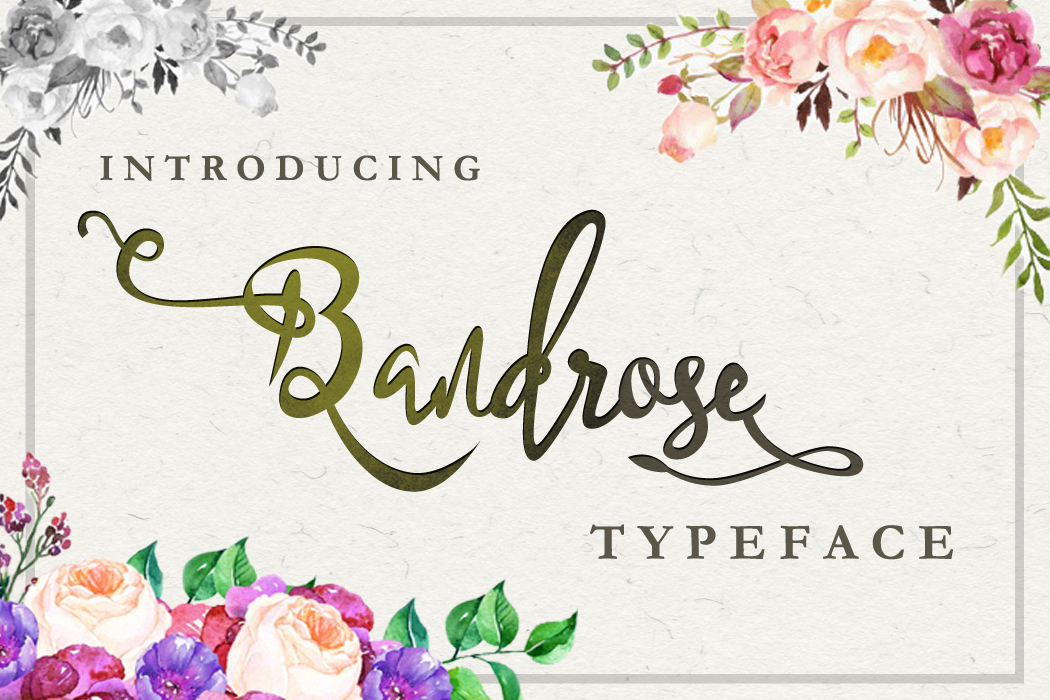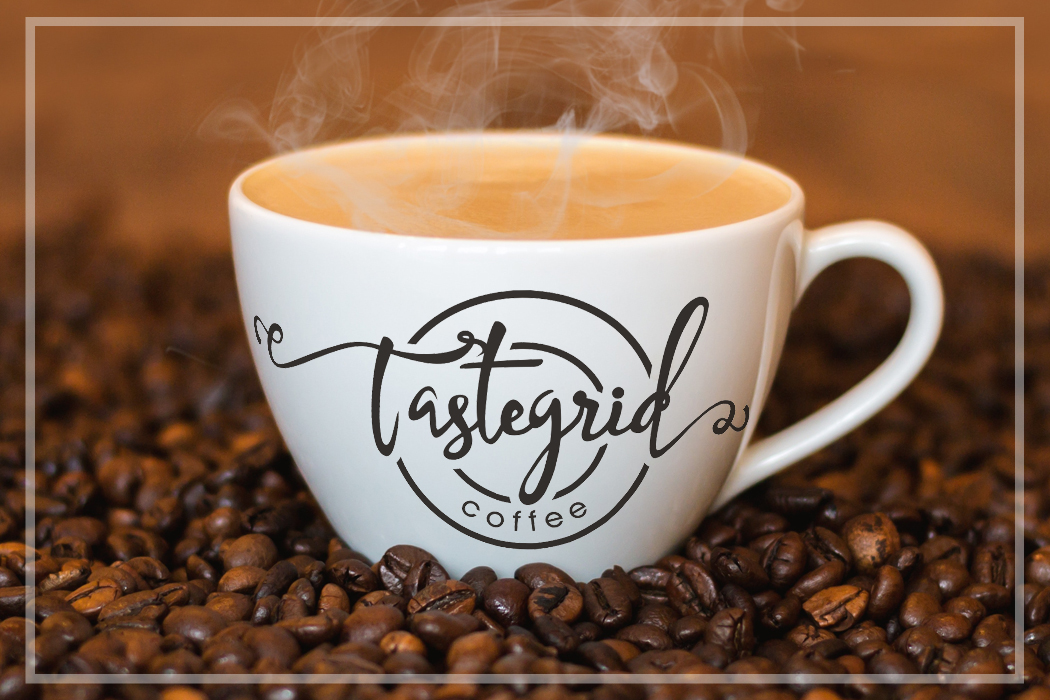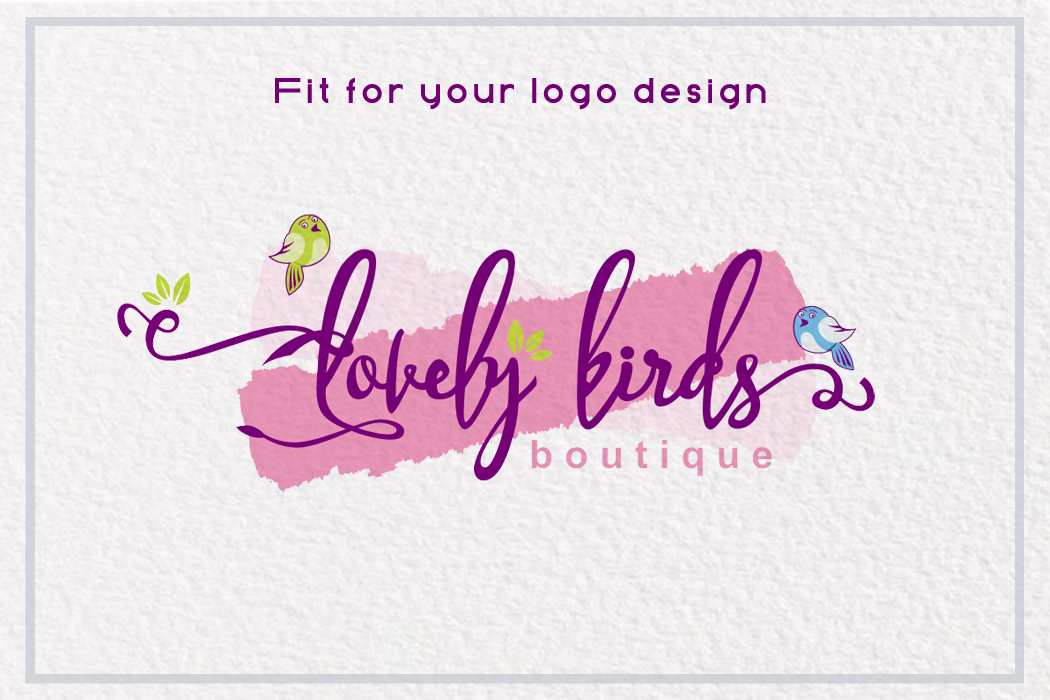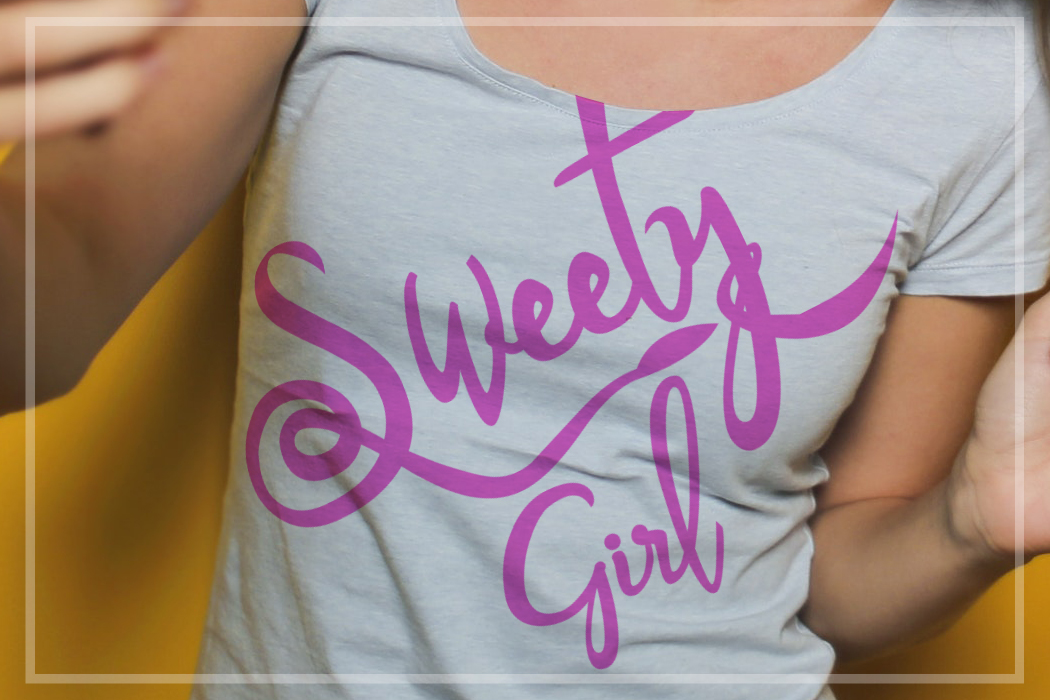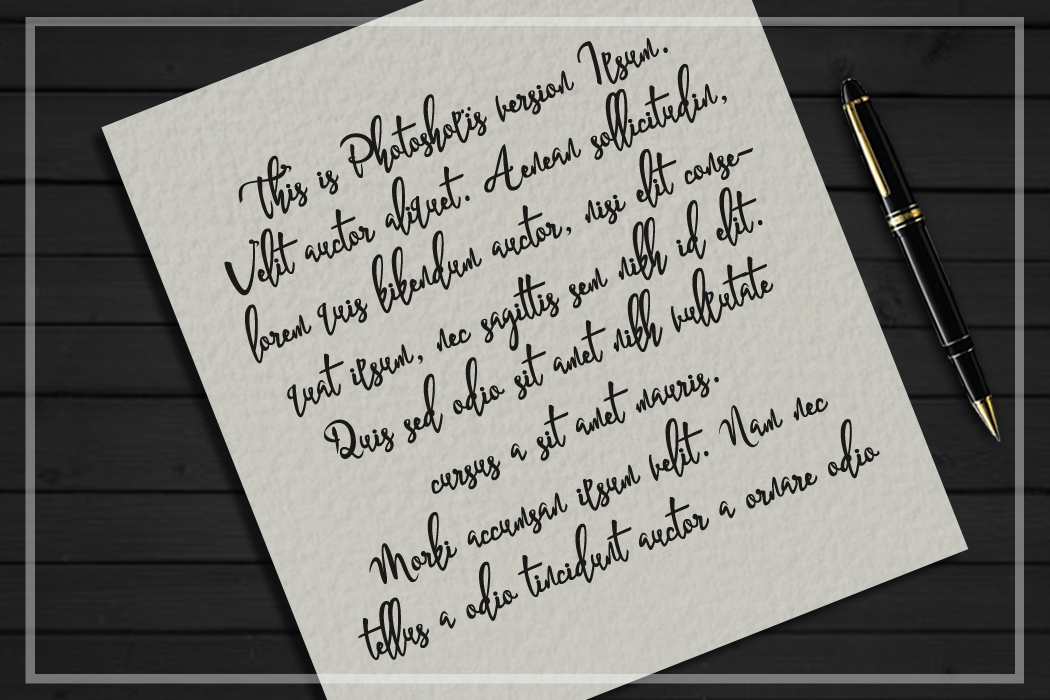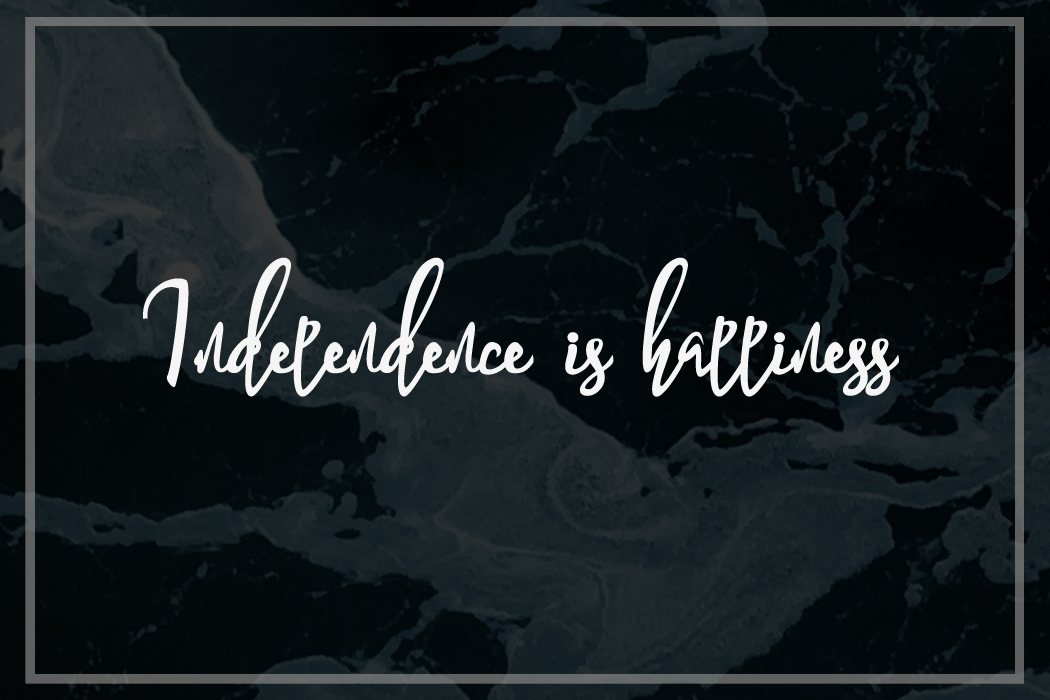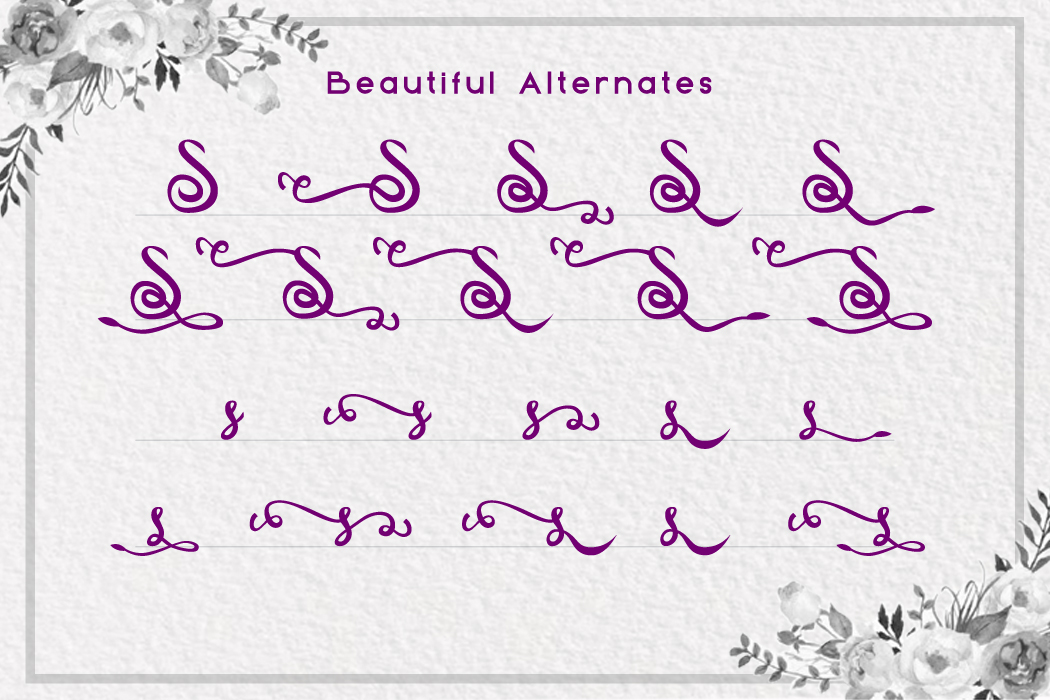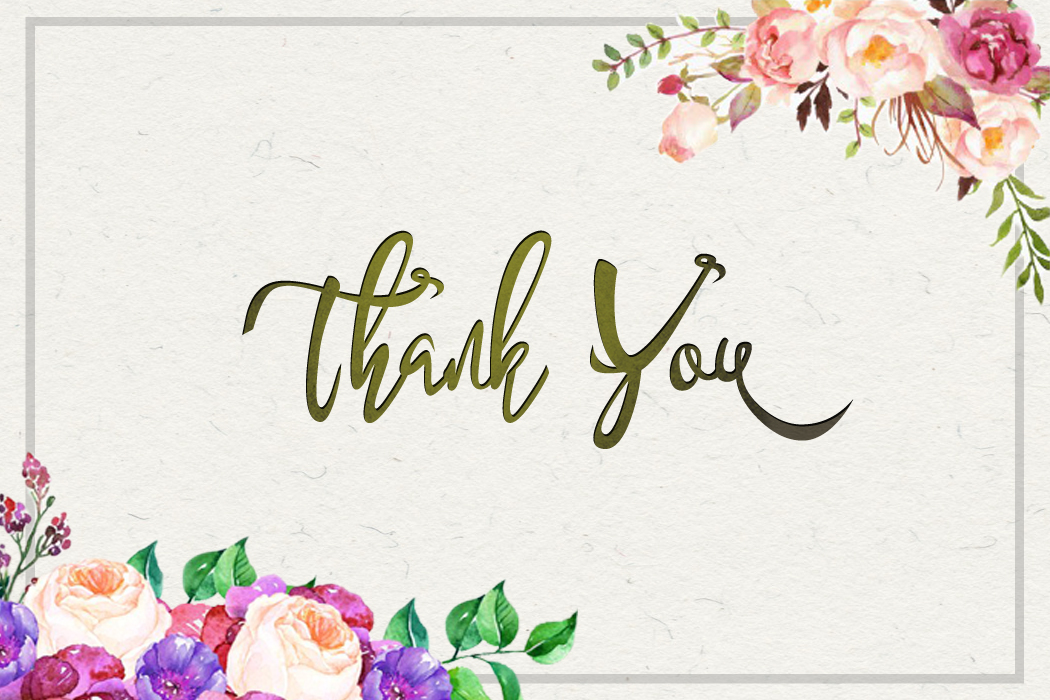
Bandrose typeface
Bandrose is a beautiful typeface that is provided for anyone who wants a beautiful and warm font design.
It was inspired by the combination of handwriting and carving.
Its beauty can represent the design of your logo and product brand, its beauty can also be expressed in the work of your writing.
Enriched with 9 beautiful alternates for each lowercase and uppercase and with 1164 ghlyps in total, allow you to work without limits.